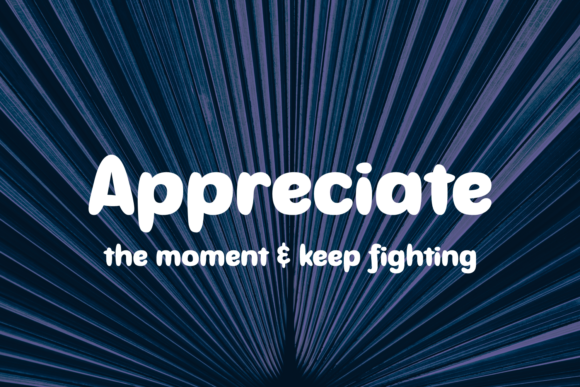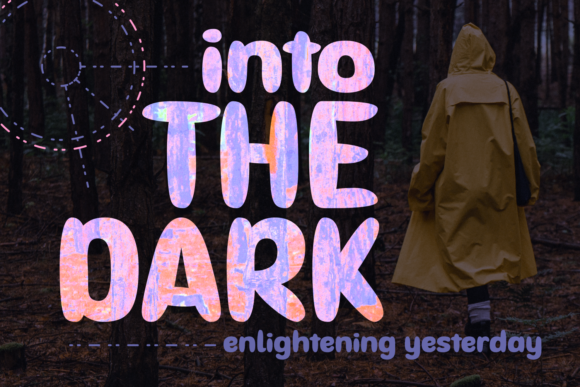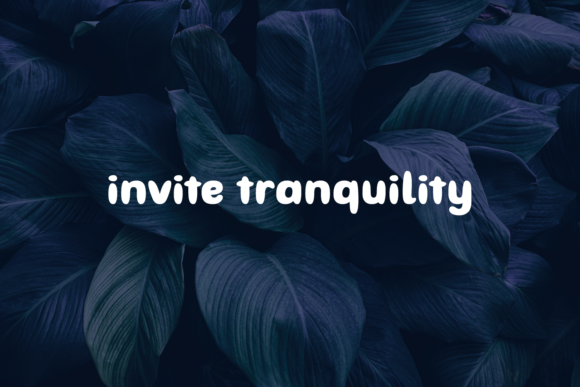
Introducing Bigg Coin Font: The Ultimate Display Font for Creative Projects
Are you a designer, crafter, or digital artist looking for a font that can elevate your creative projects? Look no further than Bigg Coin Font, a chic and cool-looking display font that’s perfect for a variety of applications. In this article, we’ll explore the features and benefits of Bigg Coin Font, and show you how it can take your designs to the next level.
What is Bigg Coin Font?
Bigg Coin Font is a stylish and modern display font that’s designed to make a statement. With its unique and eye-catching design, it’s perfect for projects that require a bold and attention-grabbing look. Whether you’re creating a logo, crafting a greeting card, or designing a presentation, Bigg Coin Font is the perfect choice.
Key Features of Bigg Coin Font
- Chic and Cool Design: Bigg Coin Font features a chic and cool design that’s sure to turn heads. Its unique and modern look makes it perfect for creative projects that require a bold and stylish font.
- Versatile: Bigg Coin Font is versatile and can be used for a variety of projects, including crafting, digital designing, presentations, and greeting cards making.
- Easy to Read: Despite its bold and stylized design, Bigg Coin Font is easy to read, making it perfect for projects that require a font that’s both stylish and legible.
- High-Quality: Bigg Coin Font is a high-quality font that’s designed to deliver exceptional results. Its crisp and clean design ensures that it looks great in any project.
Uses of Bigg Coin Font
Bigg Coin Font is a versatile font that can be used for a variety of creative projects. Here are some of the ways you can use Bigg Coin Font:
- Crafting: Bigg Coin Font is perfect for crafting projects, such as making greeting cards, scrapbooking, and other paper crafts.
- Digital Designing: Bigg Coin Font is great for digital designing, including creating social media graphics, blog posts, and website headers.
- Presentations: Bigg Coin Font is perfect for presentations, including creating titles, headings, and other text elements.
- Greeting Cards Making: Bigg Coin Font is great for making greeting cards, including creating custom messages and titles.
Benefits of Using Bigg Coin Font
There are many benefits to using Bigg Coin Font for your creative projects. Here are some of the advantages of using this font:
- Save Time: With Bigg Coin Font, you can save time and effort in creating professional-looking designs. Its unique and stylish design ensures that your projects stand out from the crowd.
- Enhance Creativity: Bigg Coin Font can help enhance your creativity and inspire new ideas. Its modern and bold design can help you think outside the box and create unique and innovative designs.
- Professional Results: Bigg Coin Font is designed to deliver professional results. Its high-quality design ensures that your projects look great and make a lasting impression.
| Font Name | Bigg Coin Font |
| Author | Wankriss |
In conclusion, Bigg Coin Font is a chic and cool-looking display font that’s perfect for creative projects. Its unique and modern design makes it versatile and easy to use, and its high-quality design ensures that it delivers professional results. Whether you’re a designer, crafter, or digital artist, Bigg Coin Font is a great choice for any project that requires a bold and stylish font.